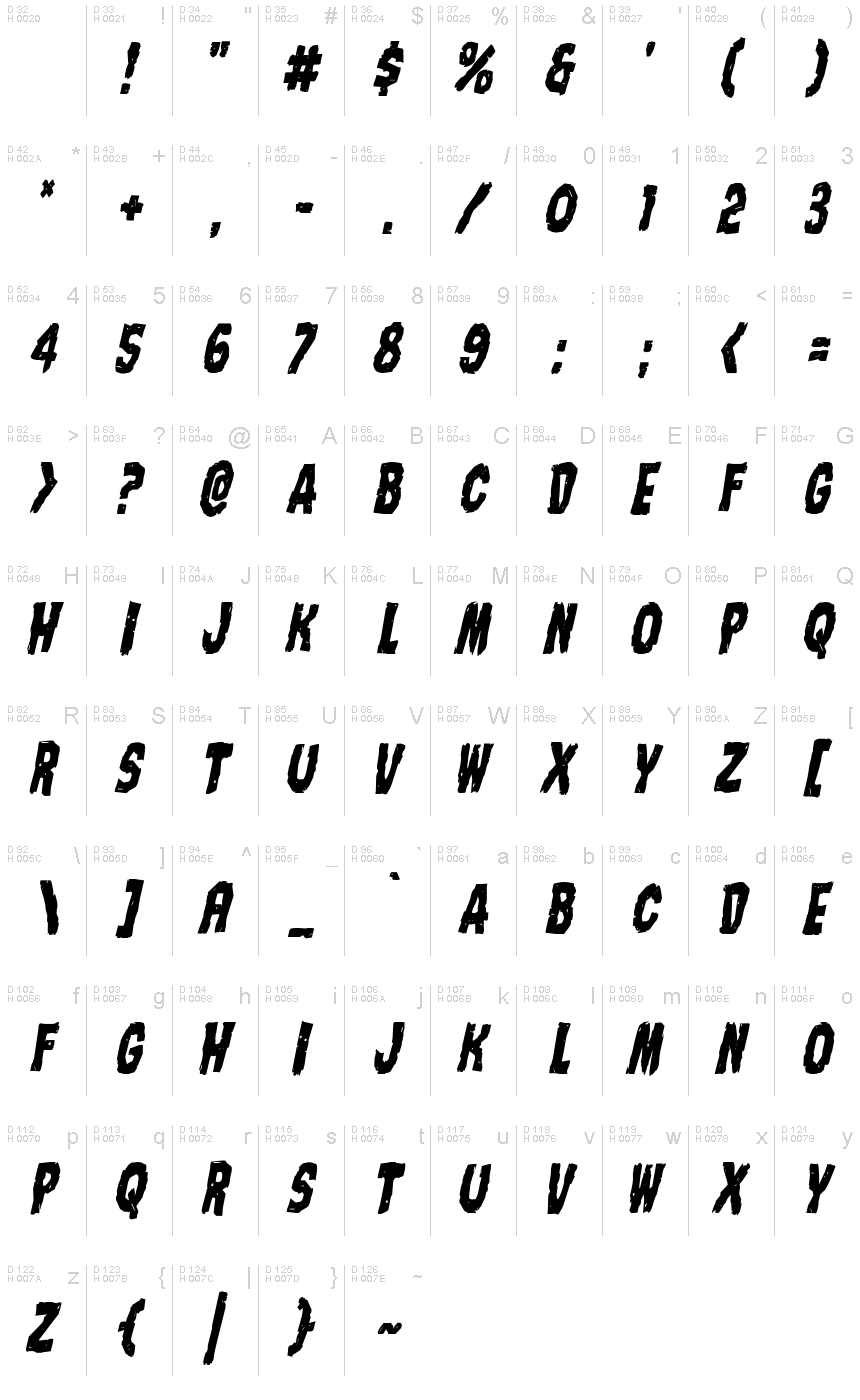
Nightmare Alley Condensed Italic
Nightmare Alley Condensed Italic is a bold, unsettling display font that commands attention. Characterized by its jagged, angular letterforms and a sense of impending danger, this font exudes an undeniably haunting aesthetic.
The condensed width amplifies the ominous presence, while the italic slant lends a sense of frenzied movement. Nightmare Alley Condensed Italic is a striking choice for horror-themed designs, from book covers and movie posters to Halloween branding and haunted house promotions.
Its intense, chilling personality makes it a versatile option for creating a strong visual impact in a variety of contexts.
The condensed width amplifies the ominous presence, while the italic slant lends a sense of frenzied movement. Nightmare Alley Condensed Italic is a striking choice for horror-themed designs, from book covers and movie posters to Halloween branding and haunted house promotions.
Its intense, chilling personality makes it a versatile option for creating a strong visual impact in a variety of contexts.